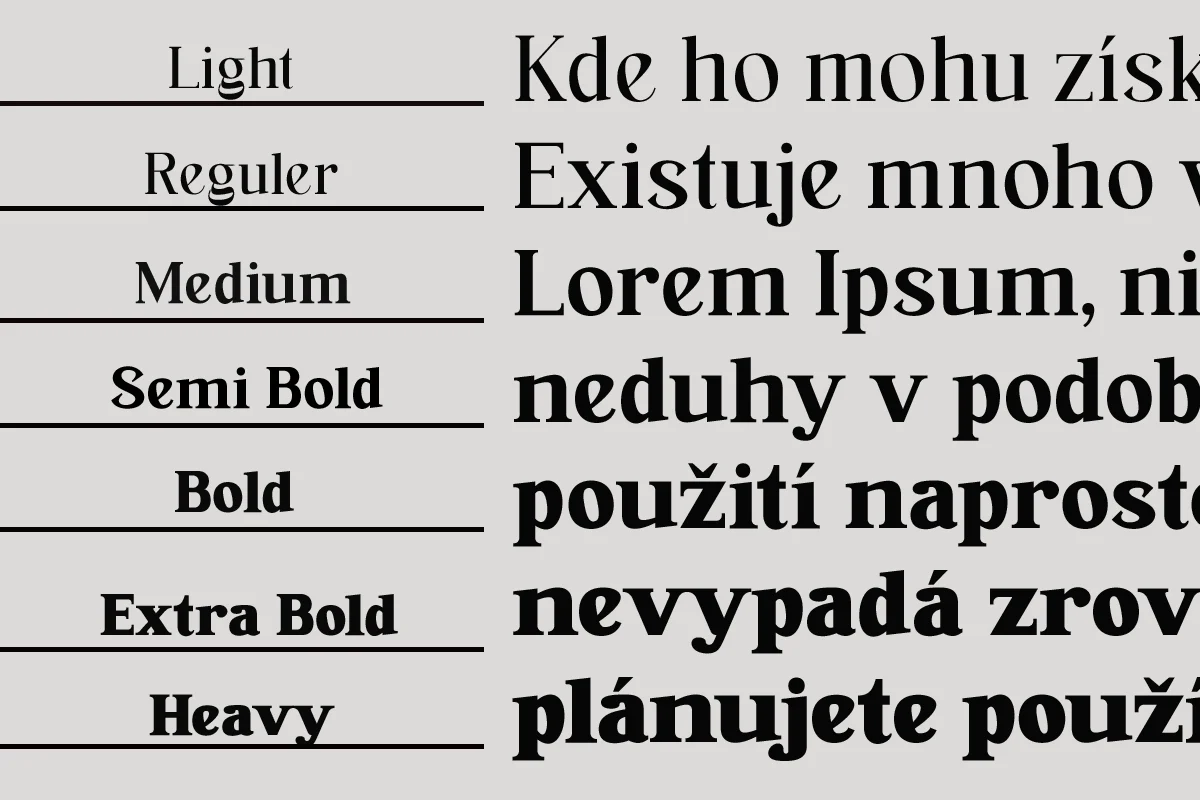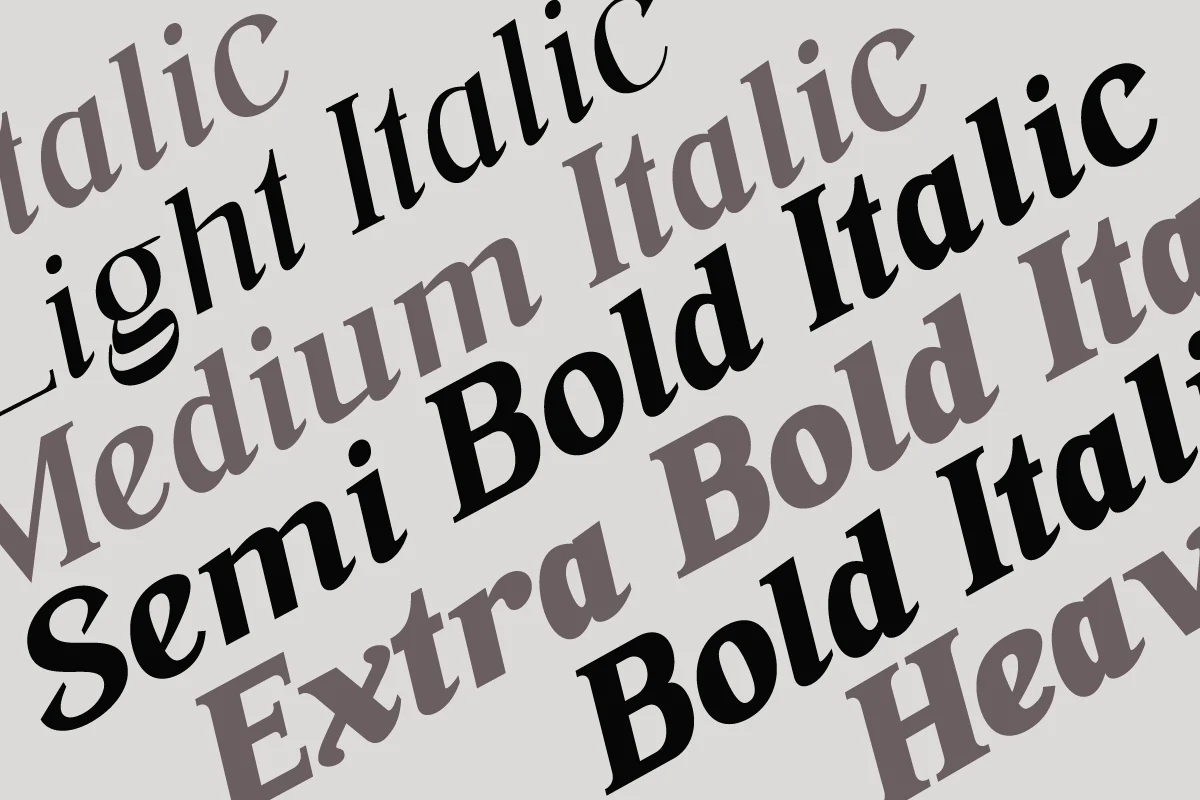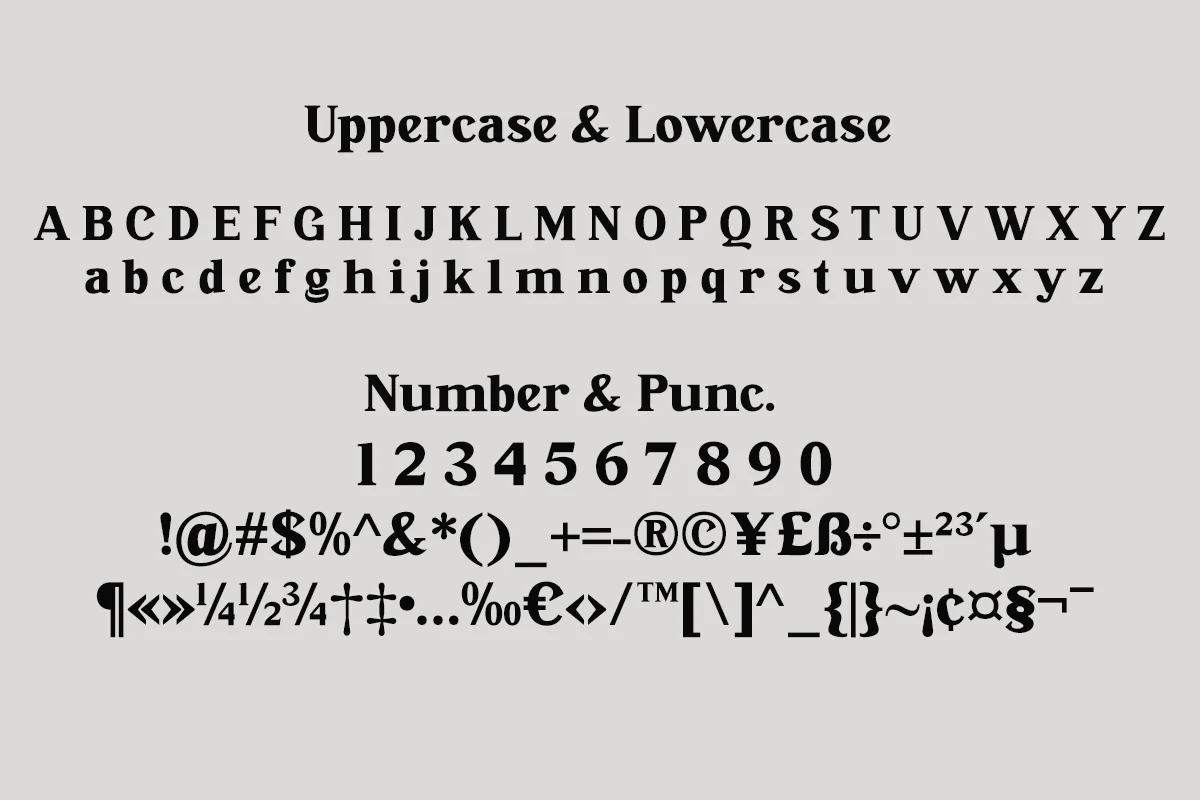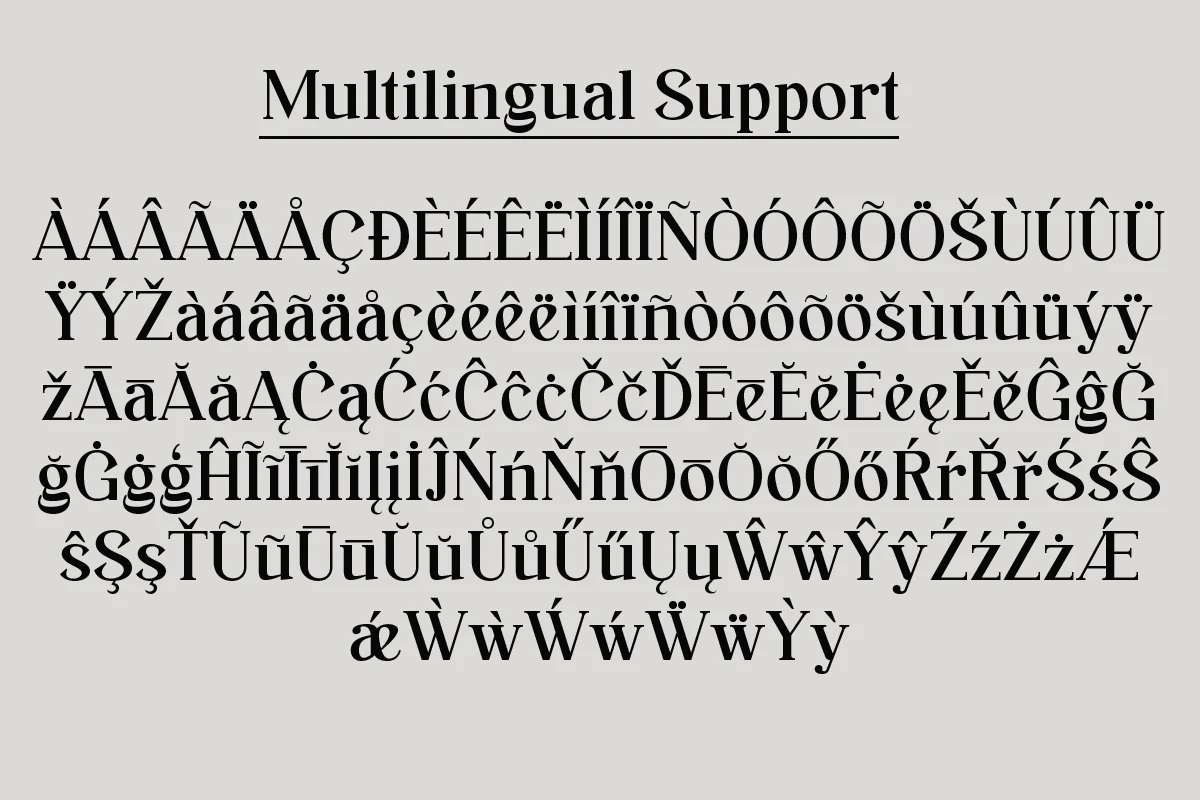
Ranira Font
Ranira is an elegant and assertive serif font. This font is PUA encoded which means you can access all of the glyphs and swashes with ease!